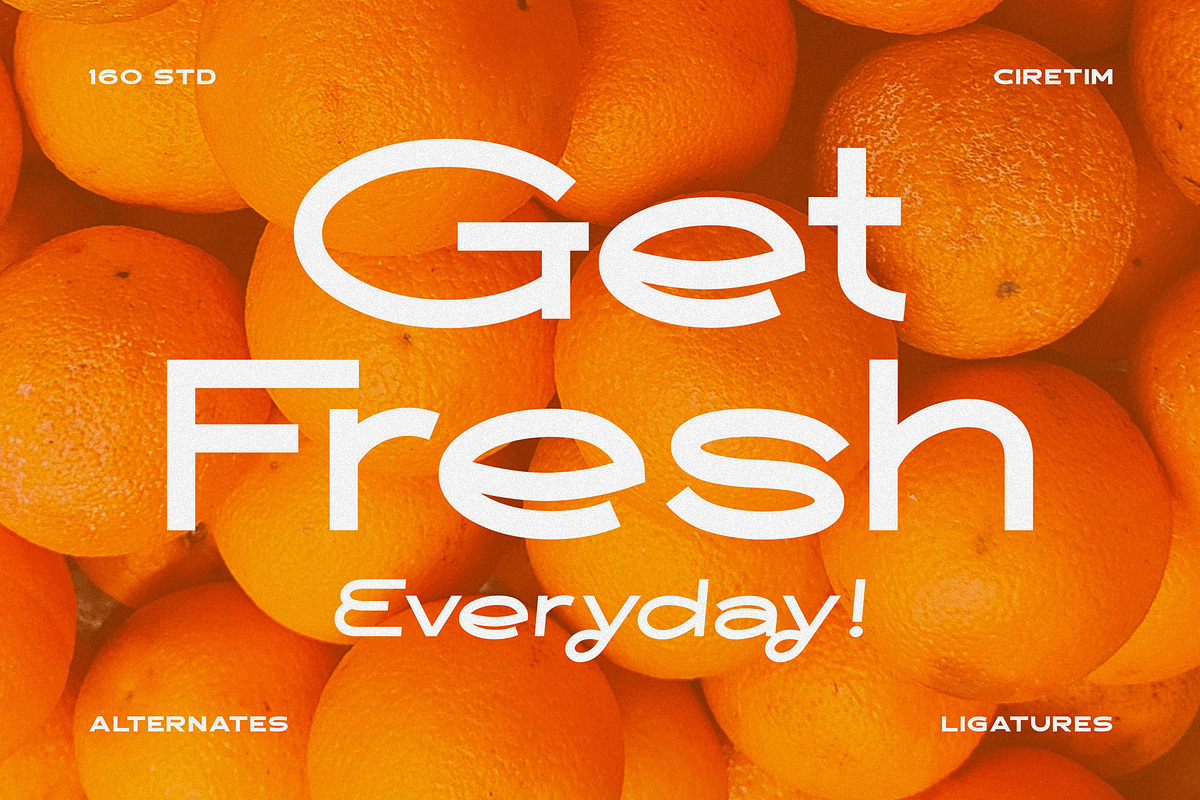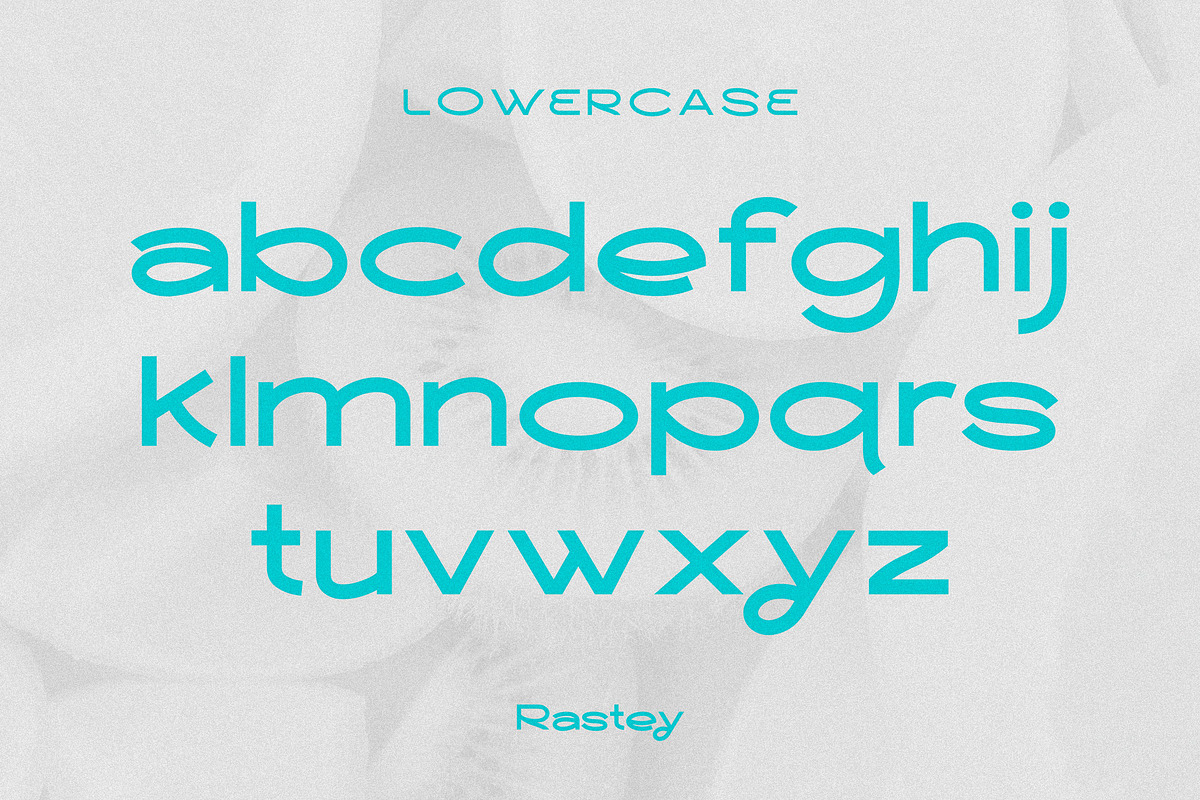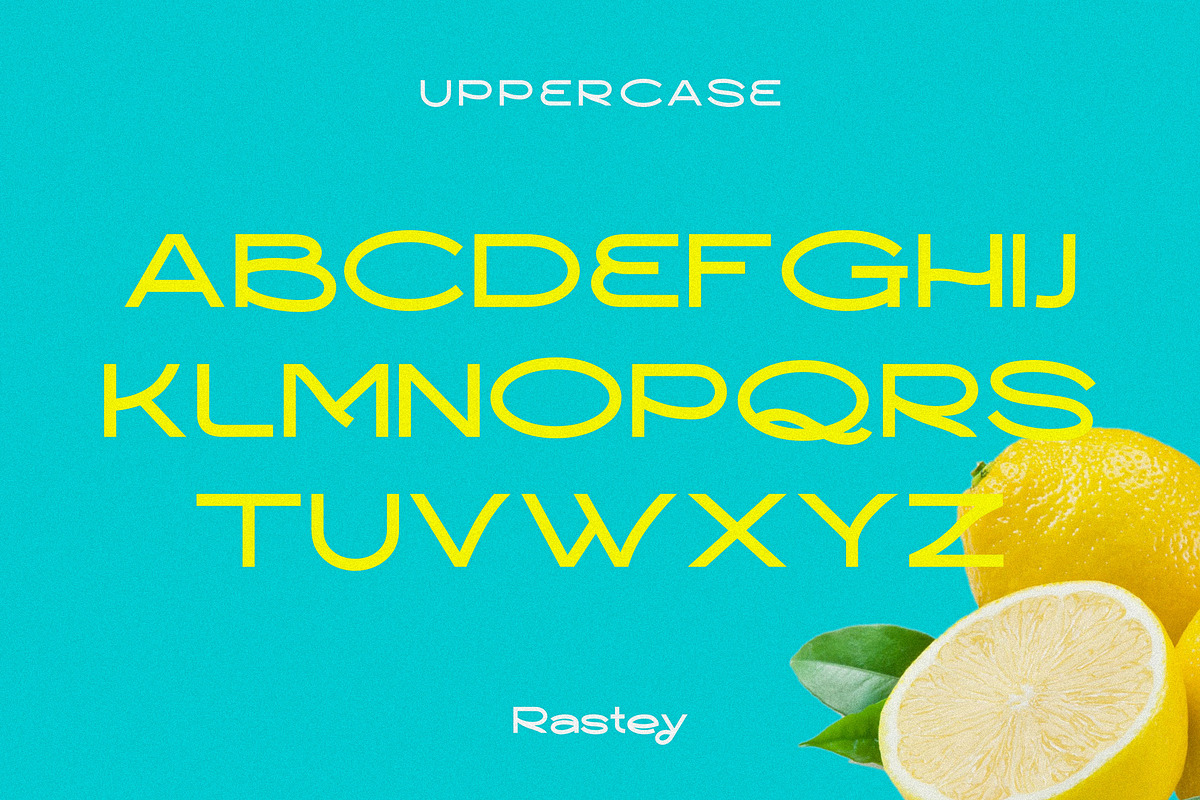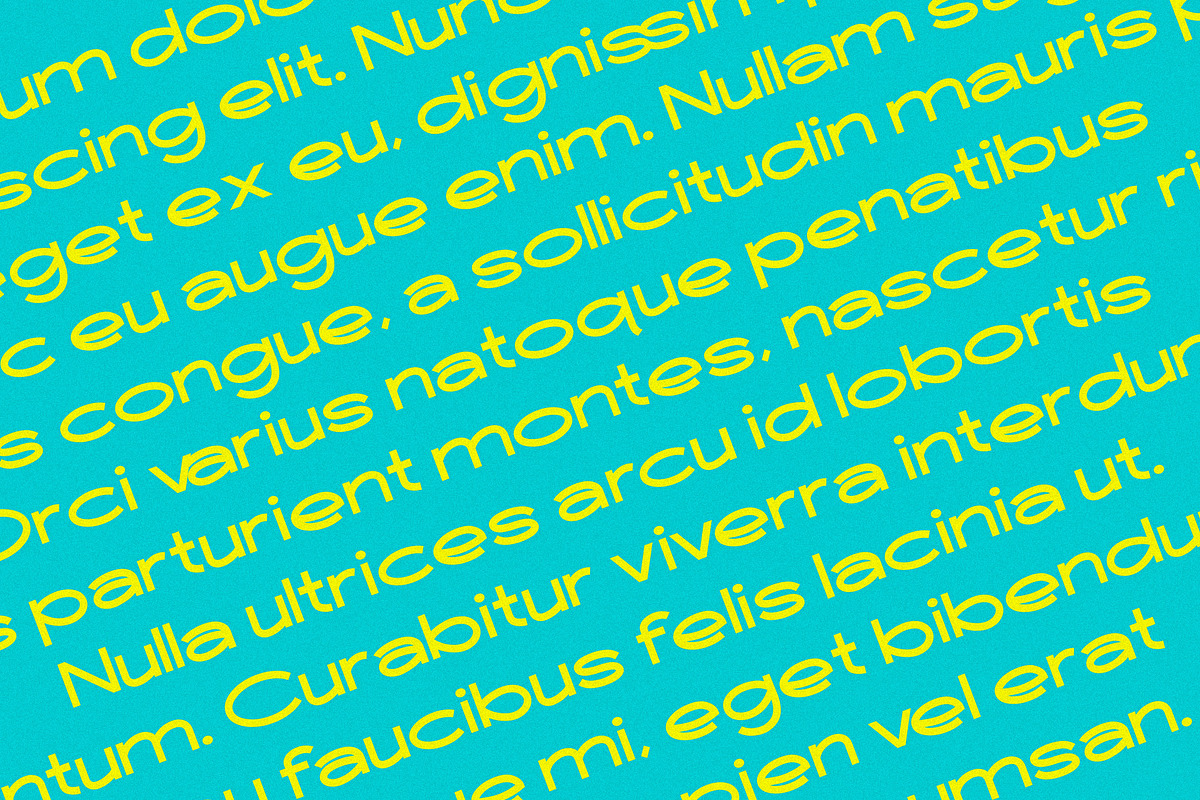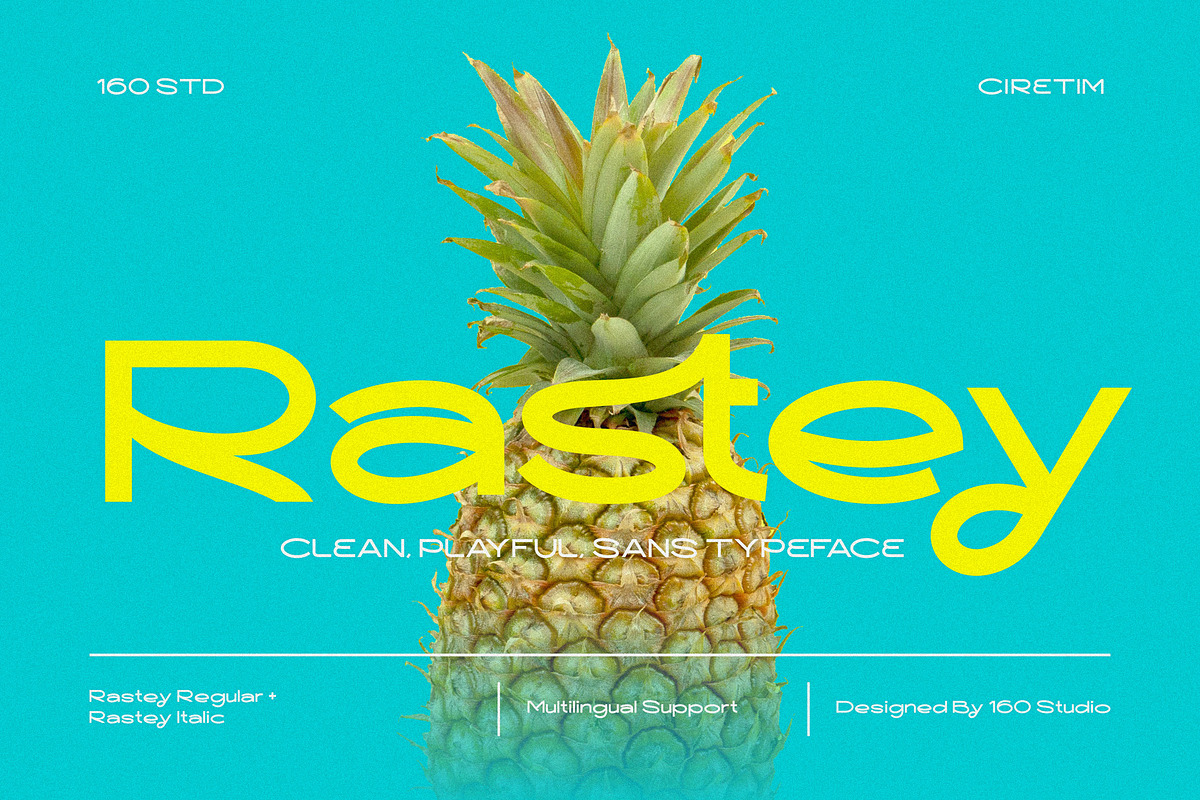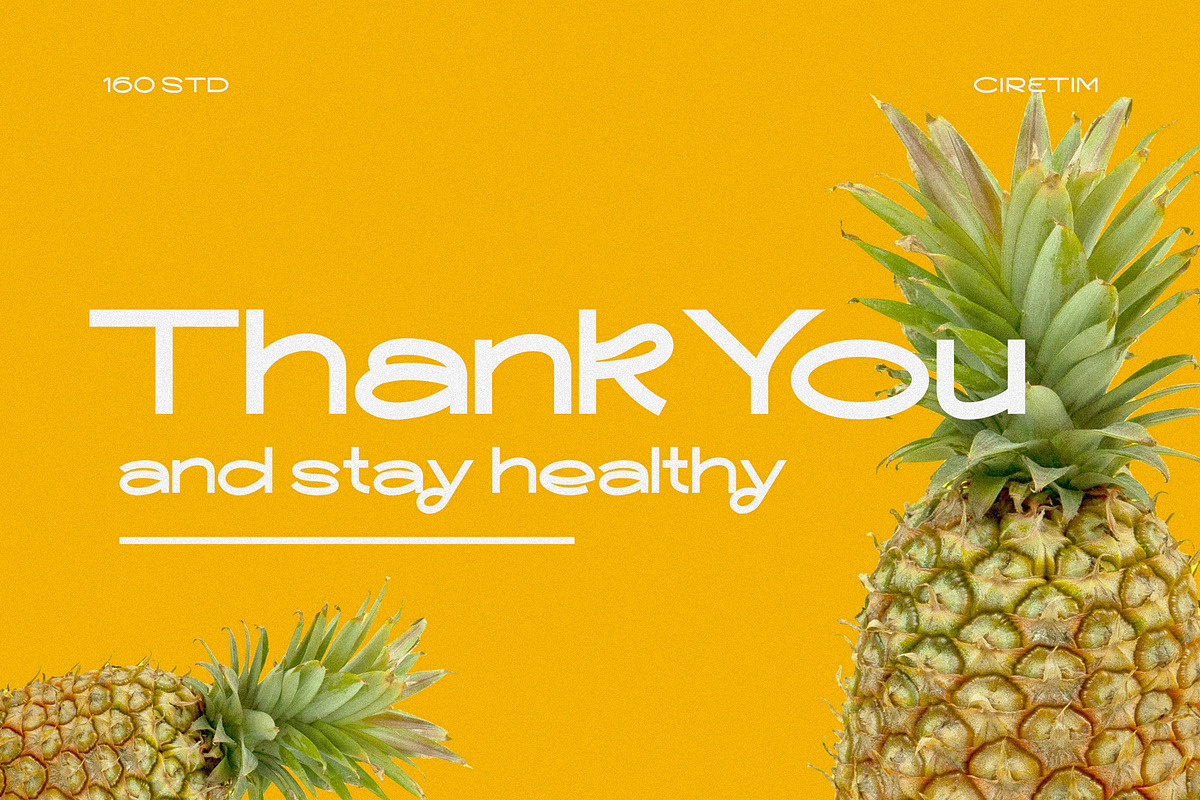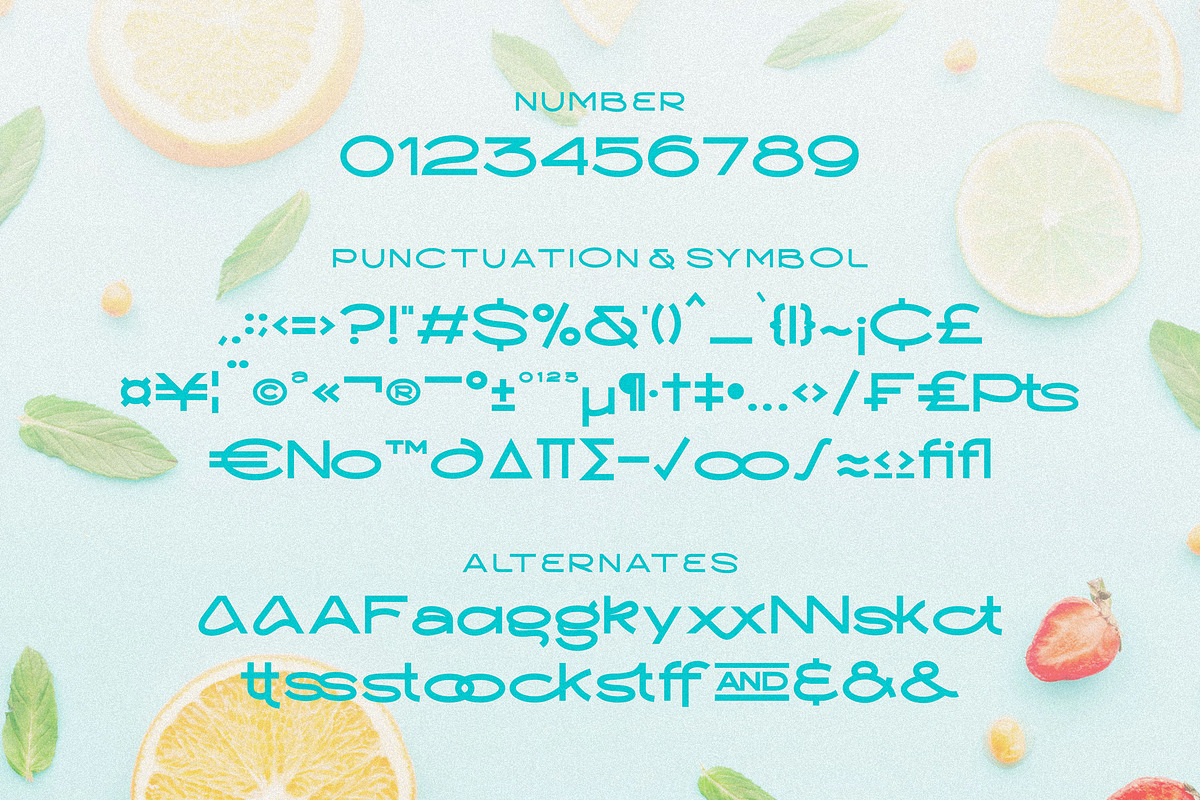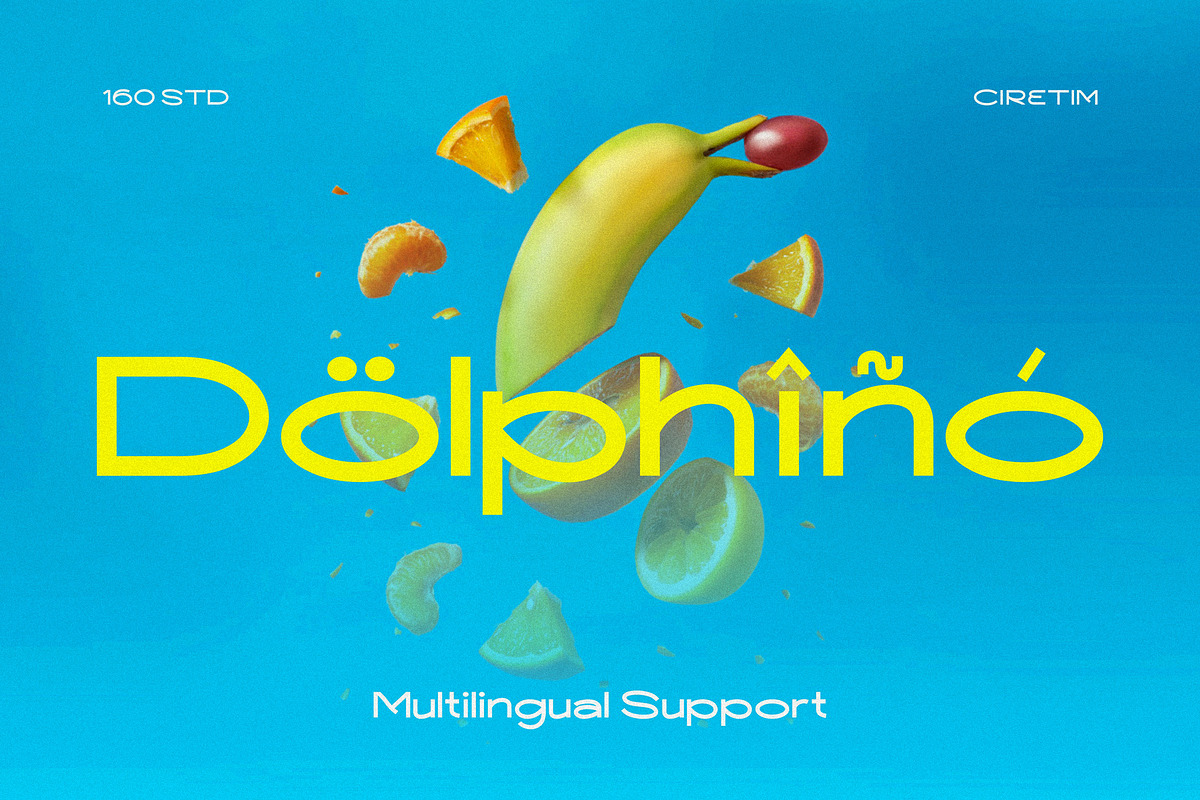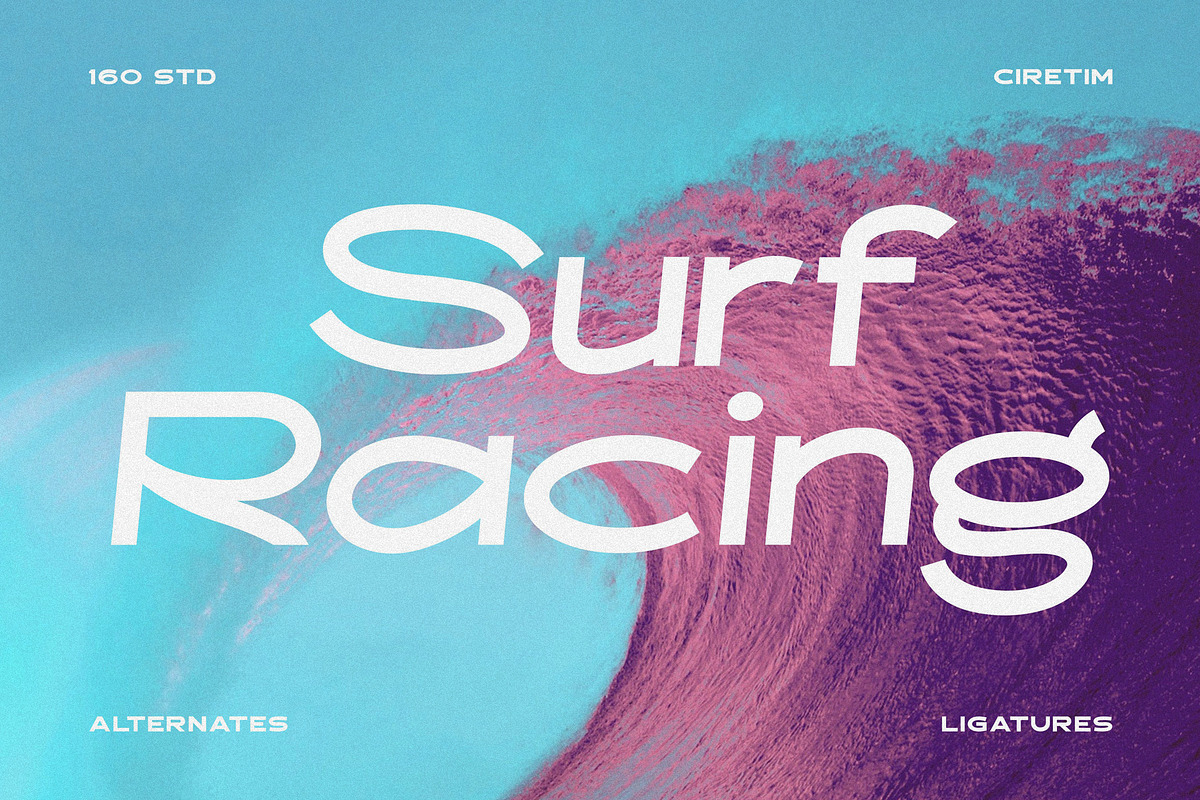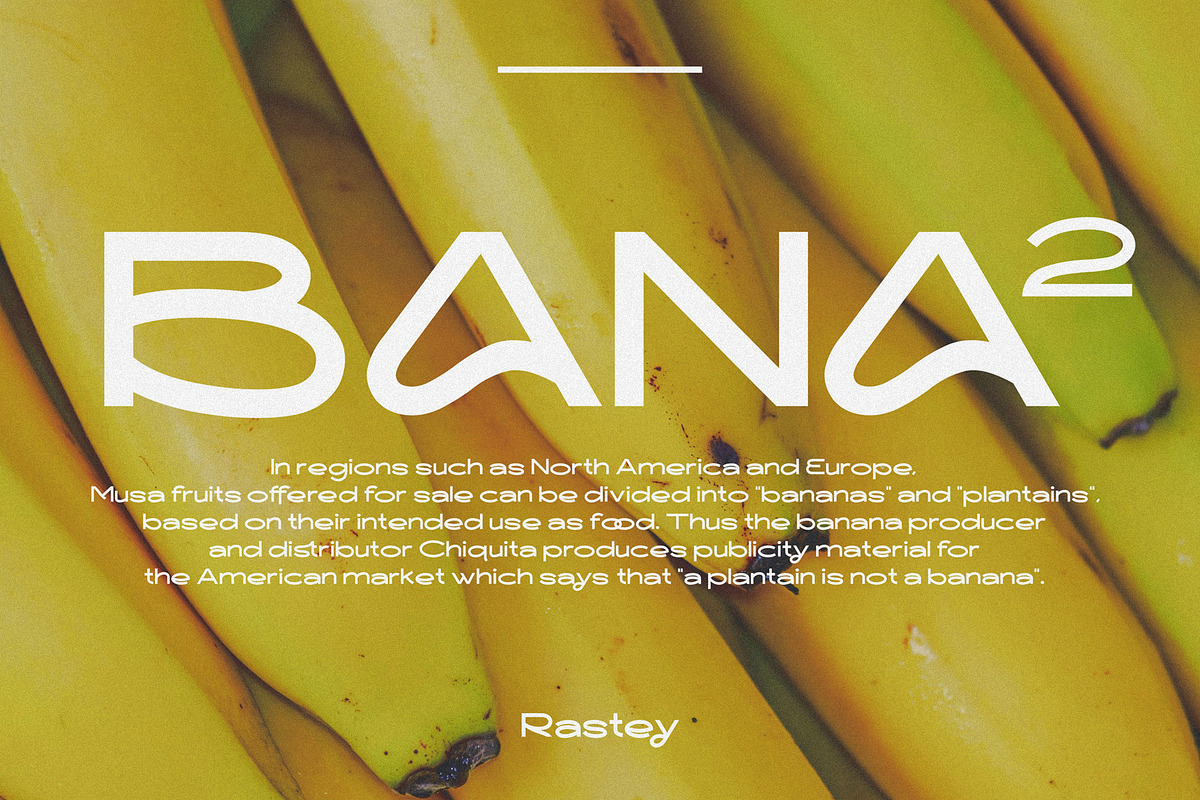
Rastey | Clean Modern Playful Sans
RASTEY is a versatile font with it's clean and sleek build. The overall typeface is strong to bring order and alignment in between the letters . It is best used as Instagram, posters, web design, magazines, logos, or products.